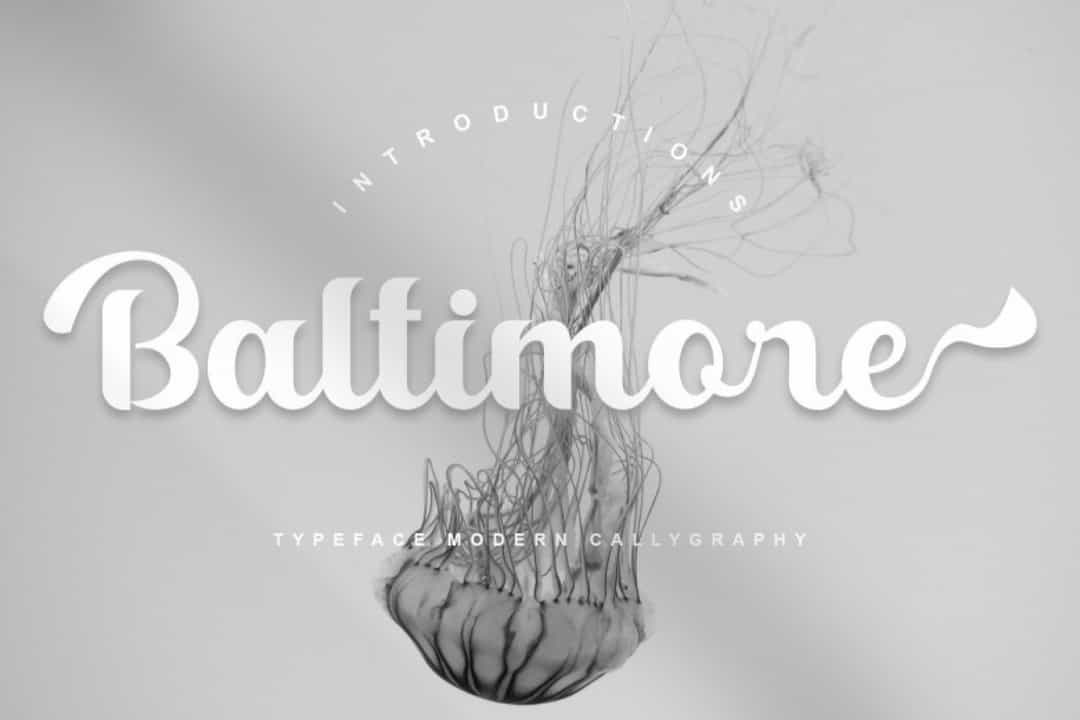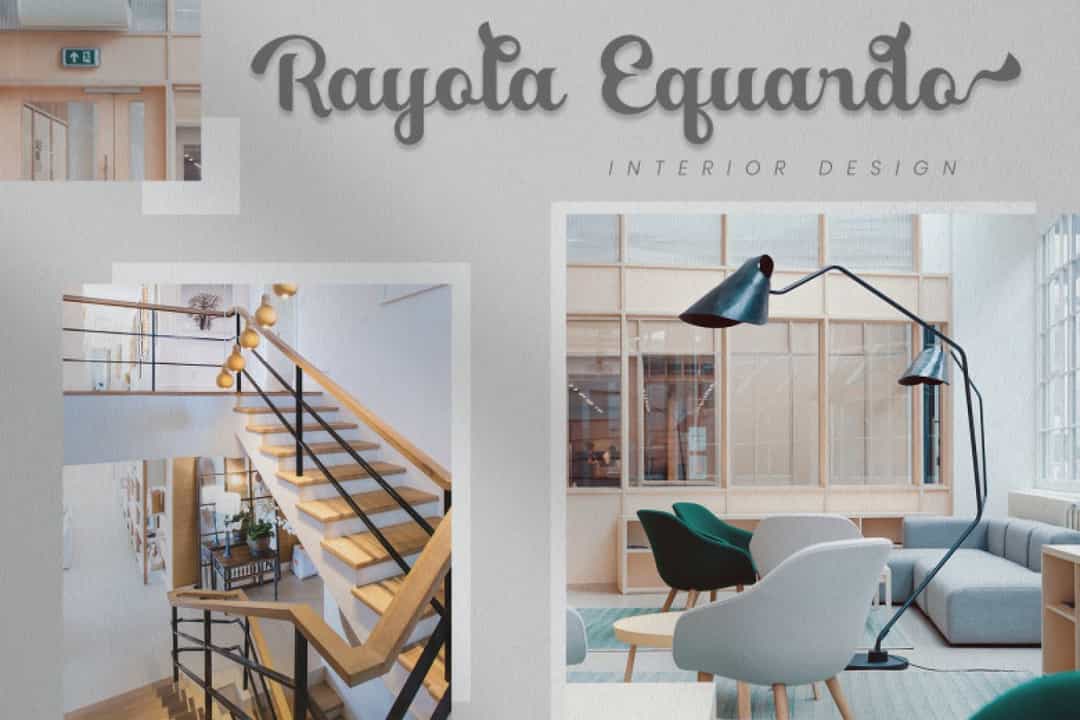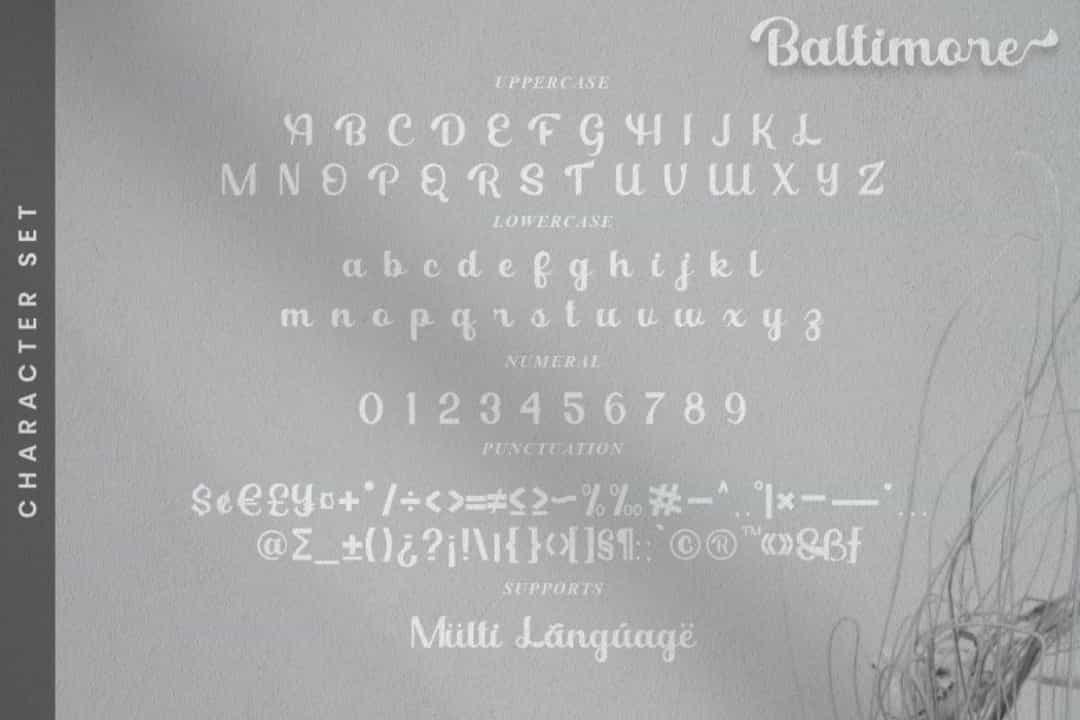
Baltimore Script Font is an exquisite handwritten font with its own distinctive feel and striking impact, which adds sophistication and polish to any design you create! Furthermore, its PUA code makes accessing its impressive glyphs and ligatures easy!